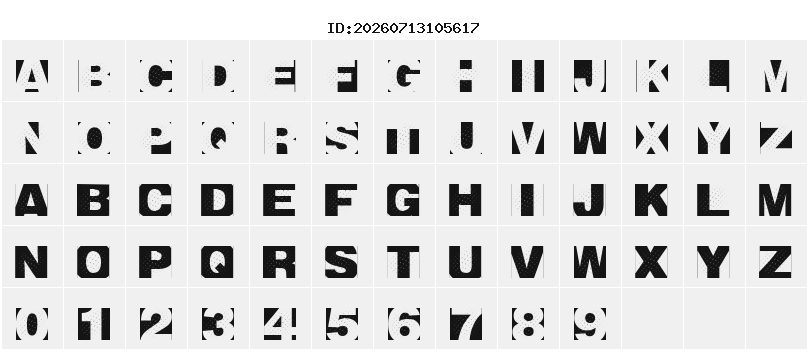
RainyDay Preview
• Font Name: RainyDay
• Full Font Name: RainyDay
About RainyDay.ttf
RainyDay.ttf is a modern, elegant sans-serif font designed for ultimate readability and visual harmony. Perfect for branding, headlines, web design, and print materials.